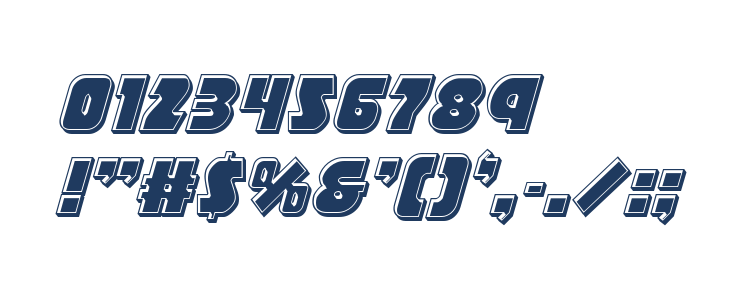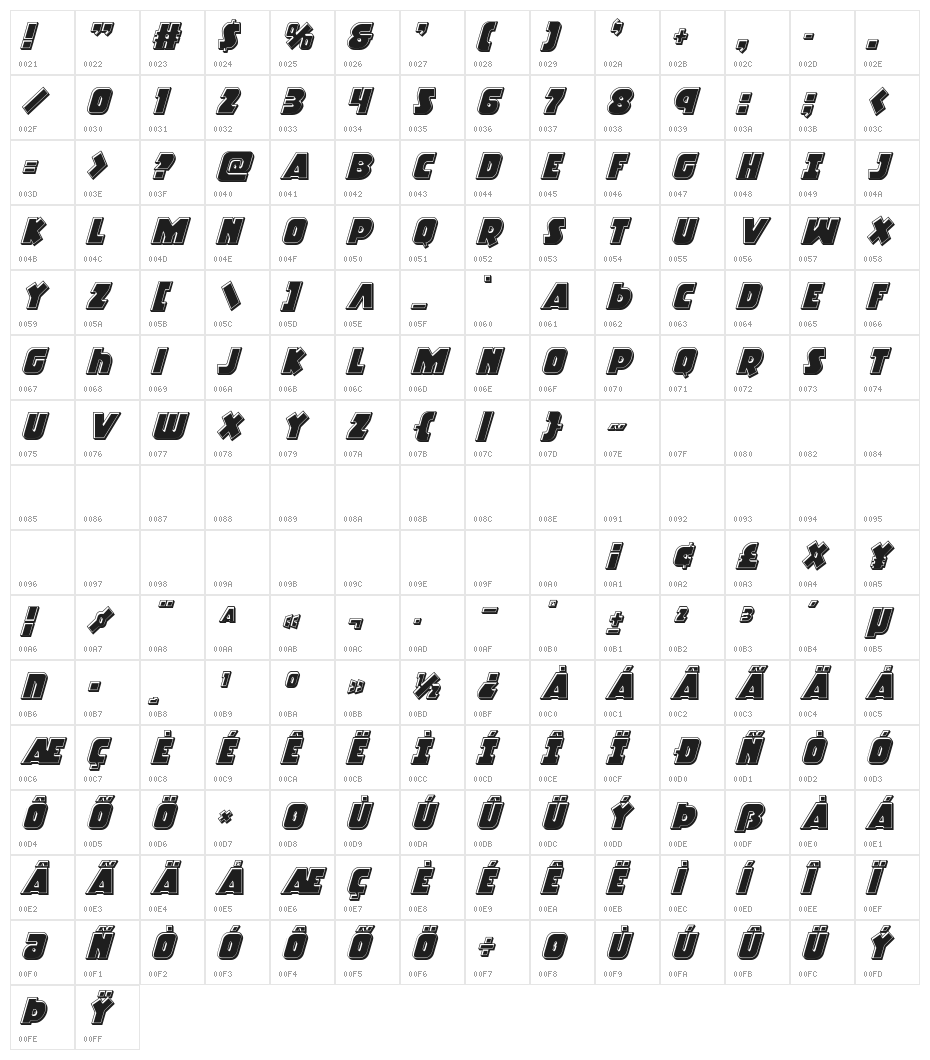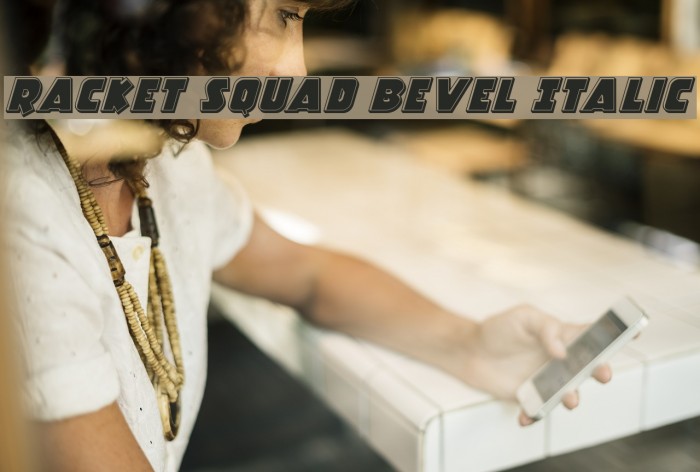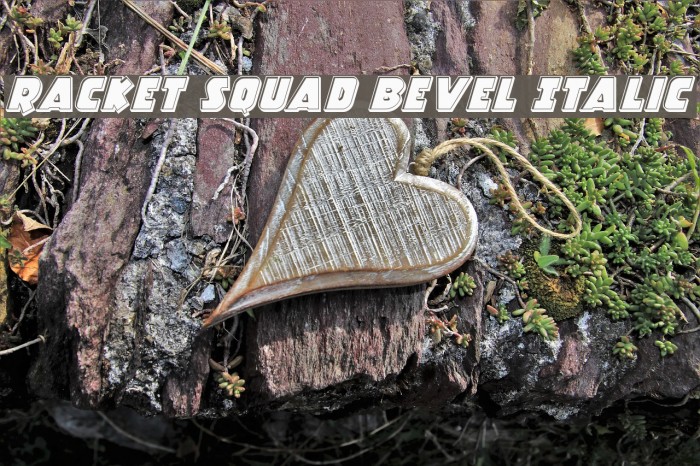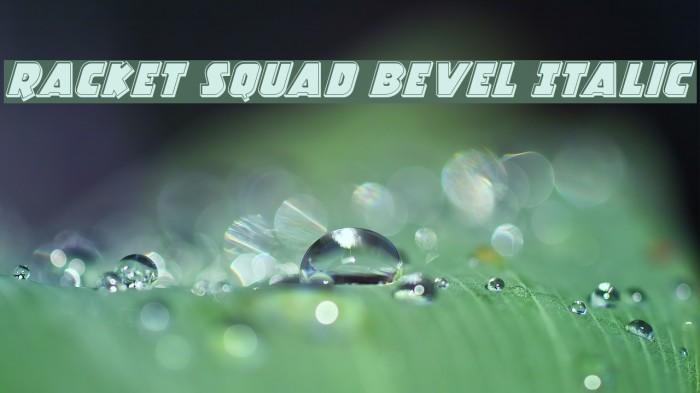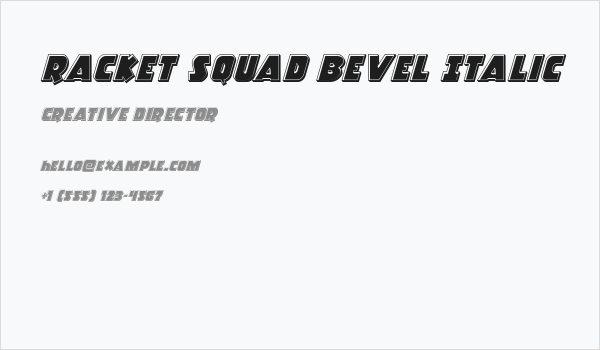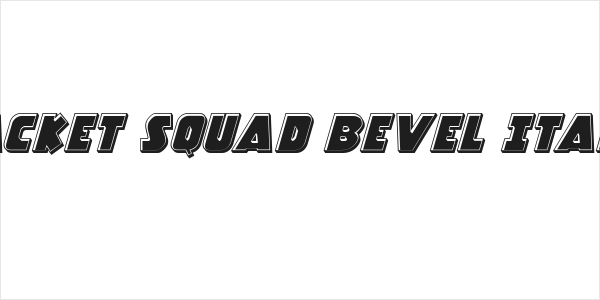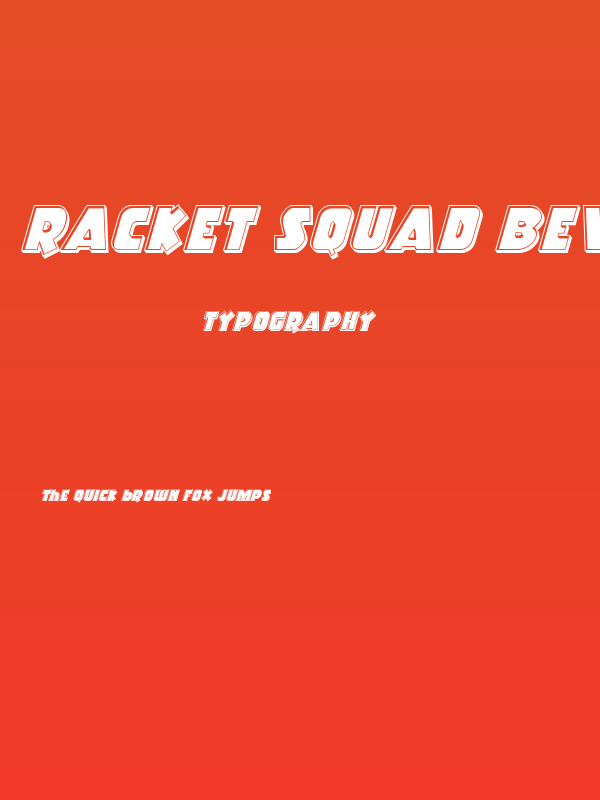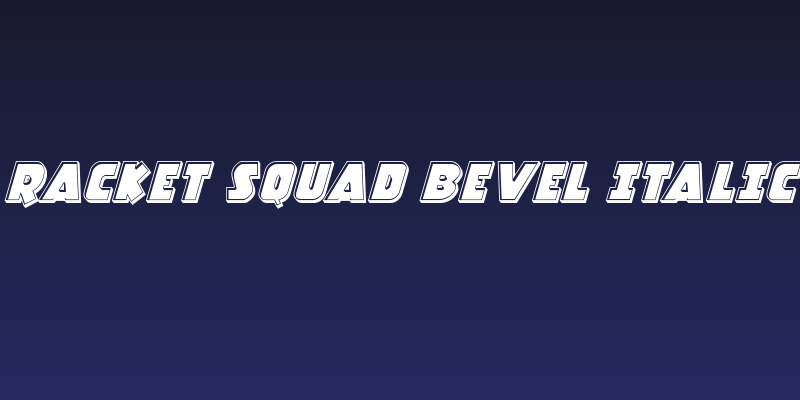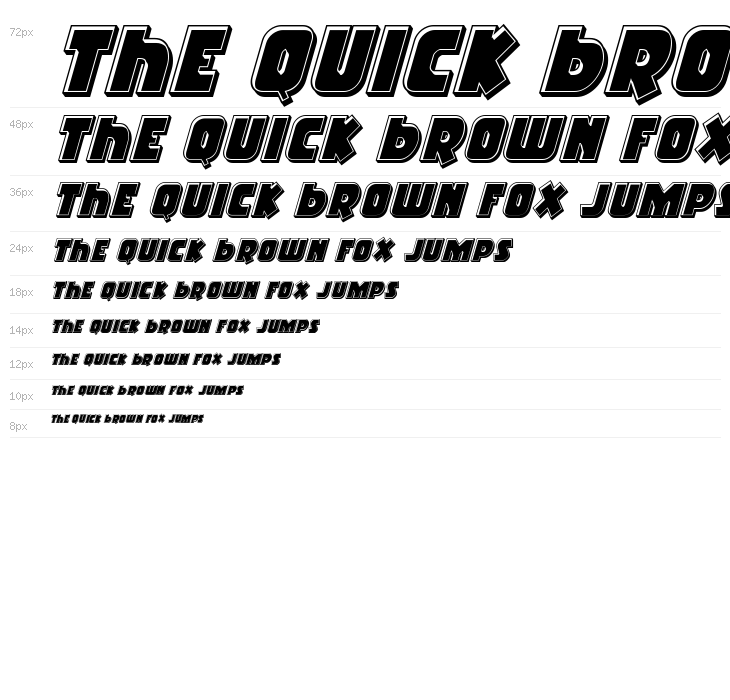
Racket Squad Bevel Italic Font
Racket Squad Bevel Italic Description
This font features a bold, italicized style with a distinct beveled edge, giving it a three-dimensional appearance. The characters are robust and impactful, with a strong presence that makes them stand out. The uppercase and lowercase letters maintain a consistent style, with the italic slant adding a dynamic feel. The numerals and special characters are designed to match the boldness and beveled effect, ensuring uniformity across all glyphs. This font is particularly eye-catching and is designed to grab attention with its unique, decorative style.
| Proposed Projects | Ideal for headlines, posters, logos, and any design requiring a strong, attention-grabbing font. |